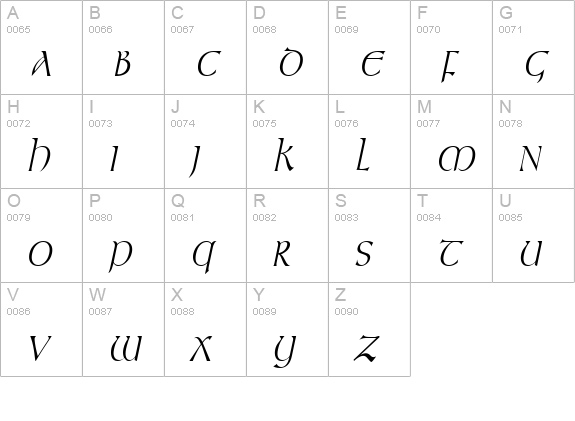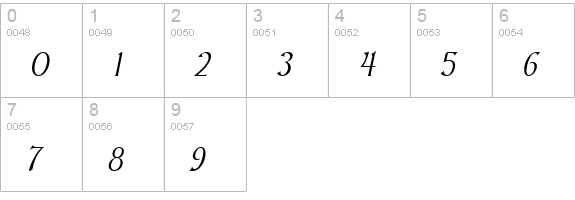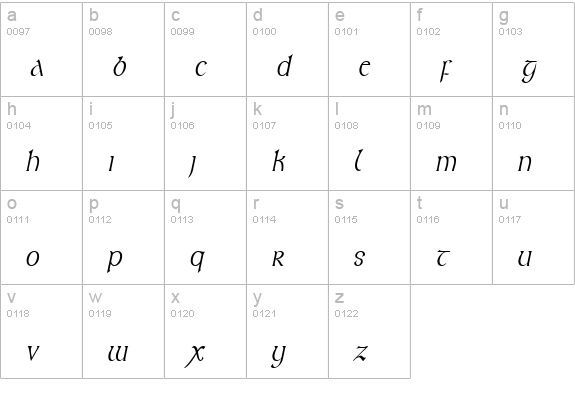
Kelt Condensed Italic is a distinctive, condensed-width, italic variant in the Kelt typeface family \xE2\x80\x94 well suited to design and typography projects.
Introducing Kelt Condensed Italic, a captivating and versatile font that effortlessly combines elegance with modernity. This font is the perfect choice for those seeking a touch of sophistication in their designs, whether it be for branding, editorial work, or any creative project that requires a refined aesthetic. With its sleek and slanted letterforms, Kelt Condensed Italic exudes a sense of dynamic energy and movement. The italicized style adds a subtle yet striking emphasis to the text, allowing your words to come alive on the page. Its condensed nature also ensures that your designs maintain a sleek and streamlined appearance, making it an ideal choice for limited space layouts or designs that demand a contemporary touch. But what truly sets Kelt Condensed Italic apart is its availability as a free download. Yes, that's right! This remarkable font can be freely obtained at FontsMarket.com, a trusted and reliable source for high-quality fonts. Whether you're a professional designer looking to enhance your font collection or a hobbyist seeking to add a touch of elegance to your personal projects, Kelt Condensed Italic is here to meet your needs. So why wait? Download Kelt Condensed Italic today and let its refined charm elevate your designs to new heights. Whether it's for print or digital, personal or commercial use, this font is sure to leave a lasting impression. Embrace the beauty of Kelt Condensed Italic, freely available to you at FontsMarket.com.